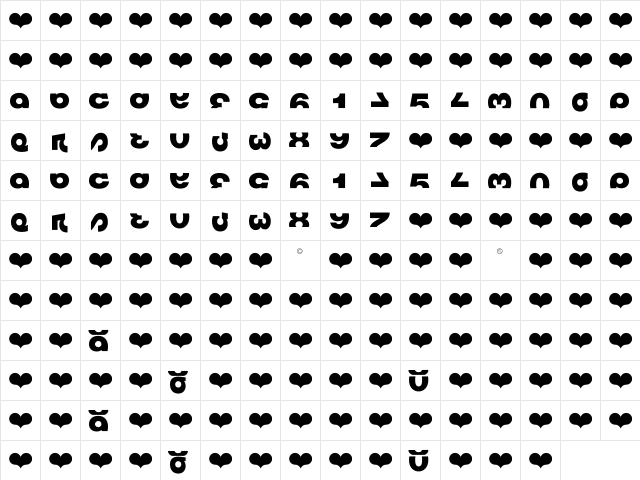
DS NSW95 Regular
Design Context for DS NSW95 Typeface
DS NSW95 is a composed and adaptable typeface that performs quietly and consistently across a wide range of design contexts.